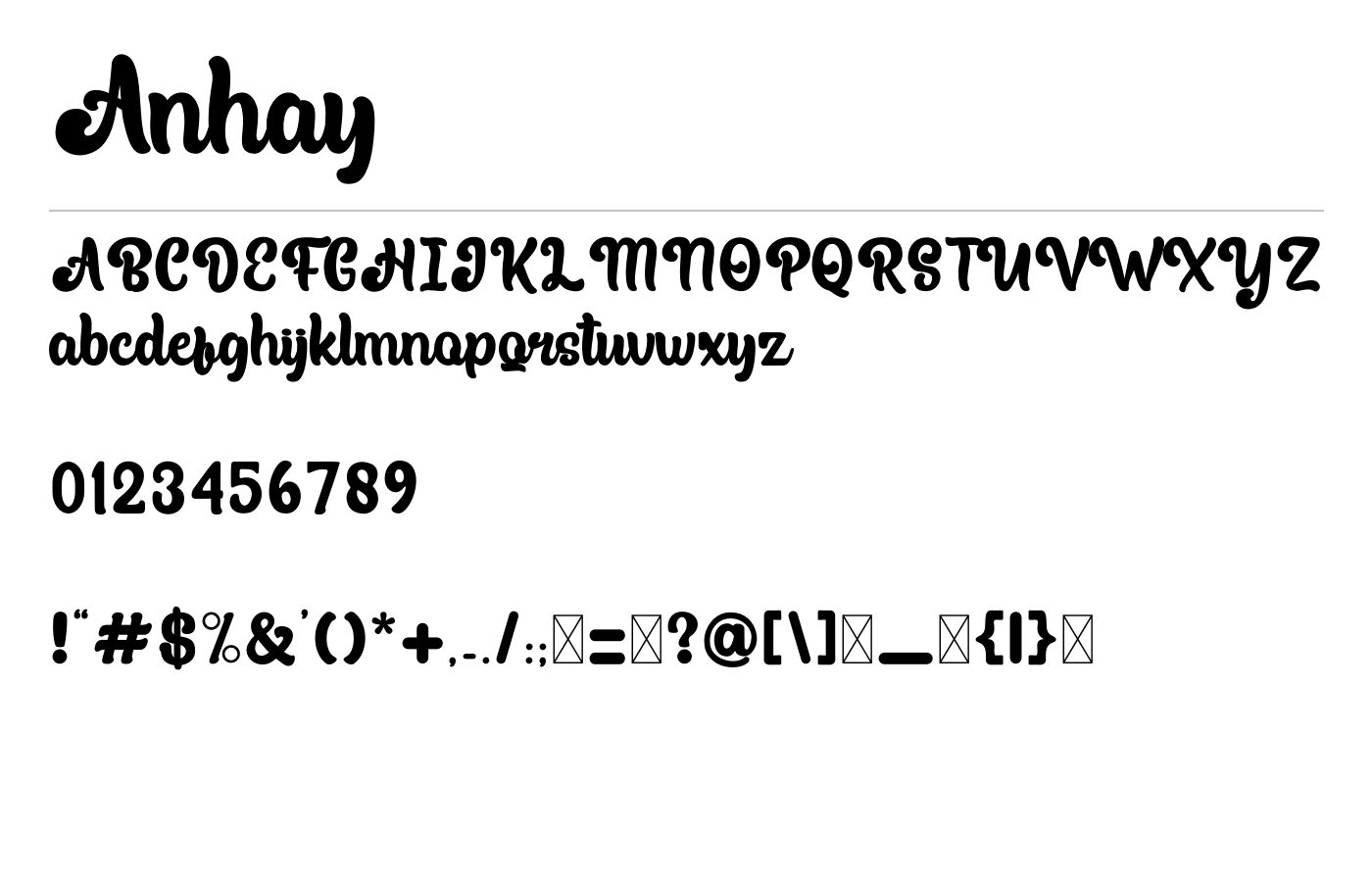
Anhay is a bold, playful script-style font that combines thick strokes with rounded, whimsical letterforms, giving it a friendly and inviting personality. Its smooth curves and unique character shapes make it ideal for creative branding, fun packaging, and eye-catching headlines where a lively, informal tone is desired. This font works best in display contexts where its distinctive style can shine and add a touch of charm.
Anhay Font
About Anhay Font